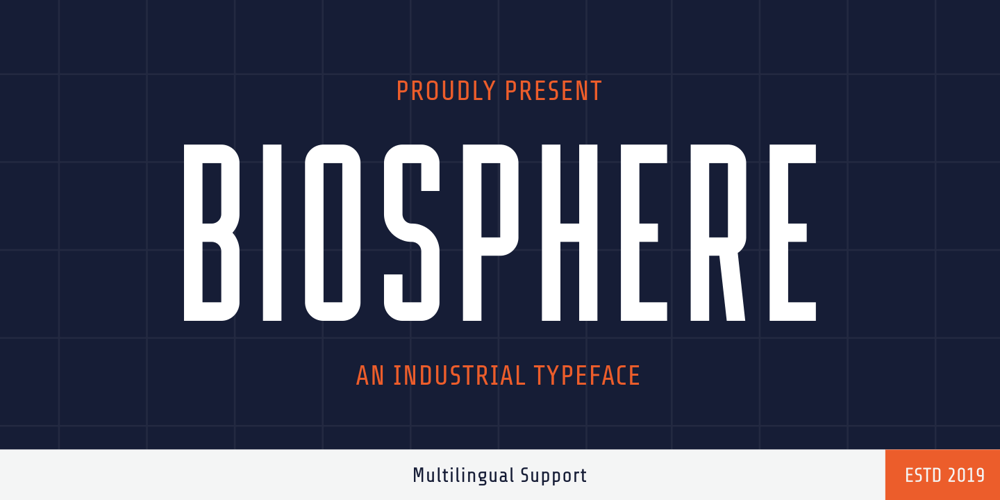
Biosphere Font Family was designed by Muhammad Hasan and published by Fype Co. Biosphere contains 1 styles and family package options. Biosphere is inspired by industrial style typeface that’s will give look a modern and technical industrial display font. That will take any design idea to the next level, covering a wide range of project types such as poster design, book covers, prints, headlines, id cards, packaging, branding.